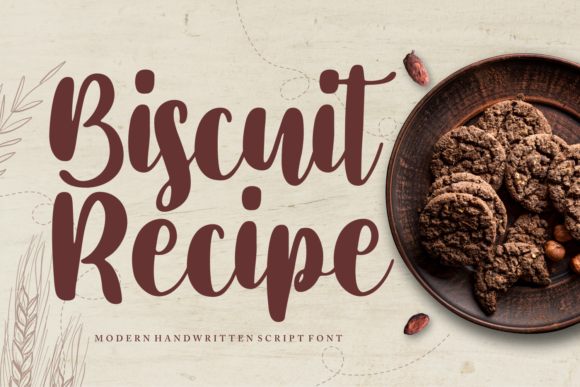
The Sweet Spot: Discovering the Biscuit Recipe Font
I’ll never forget the time I was working on a project for a high-end bakery, tasked with creating a logo that exuded warmth and sophistication. As I scoured font libraries and design resources, I found myself stuck – every font seemed either too bland or too over-the-top. That’s when I stumbled upon the Biscuit Recipe font, a lovely and delicate script font that instantly elevated my design game. In this article, I’ll share my experience with this elegant font, its features, and how to make the most of it in your designs.
- ✅ Elegant and refined: Biscuit Recipe boasts a sophisticated, cursive style perfect for high-end branding, wedding invitations, and more.
- ✅ Highly legible: Despite its script nature, this font remains clear and easy to read, even at smaller sizes.
- ✅ Versatile: Use it for logos, headings, or body text – Biscuit Recipe adapts seamlessly to various design contexts.
- ⚠️ Limited use in body text: While legible, Biscuit Recipe’s script style may not be the best choice for lengthy paragraphs.
- ⚠️ Occasional kerning issues: As with any font, some manual kerning adjustments might be necessary for optimal results.
A Glimpse into the Designer’s Inspiration
The Biscuit Recipe font was crafted with the intention of capturing the warmth and elegance of handwritten scripts. Its creator drew inspiration from classic typography, infusing it with a modern twist to create a truly unique design. Whether used for branding, packaging, or editorial projects, Biscuit Recipe aims to bring a touch of sophistication and refinement to any design.